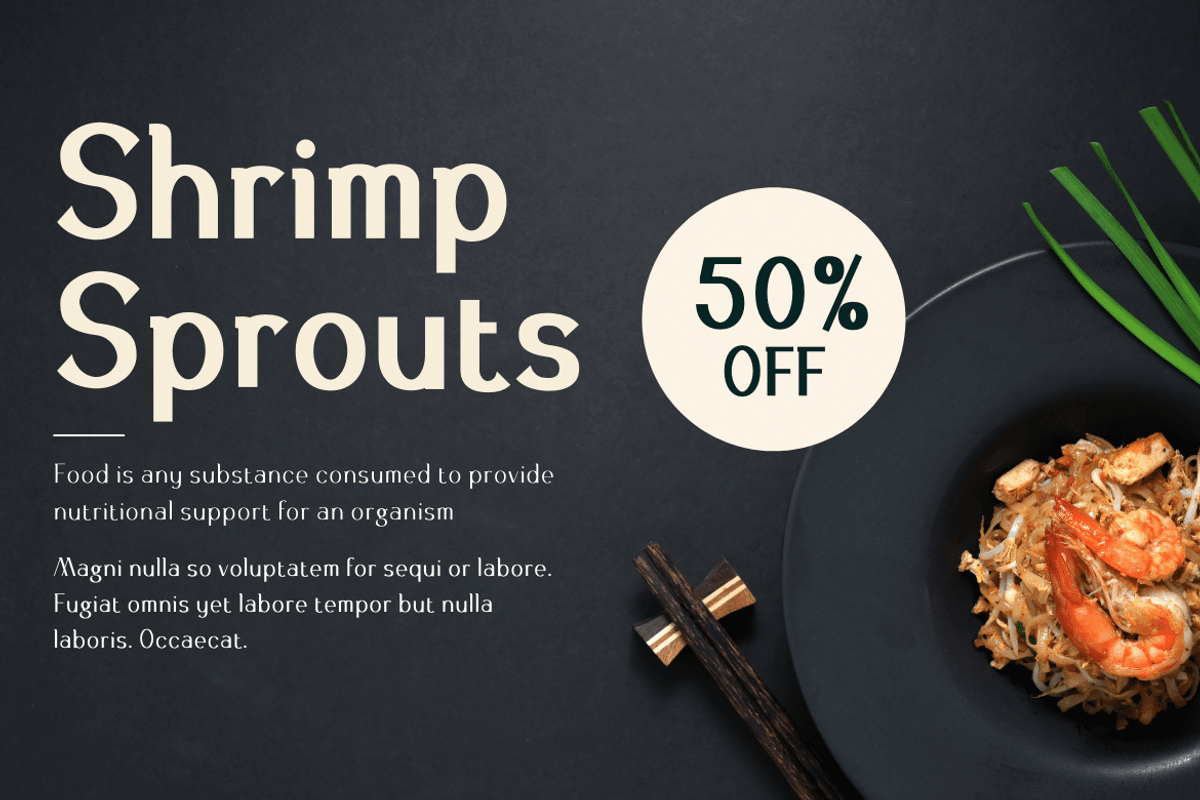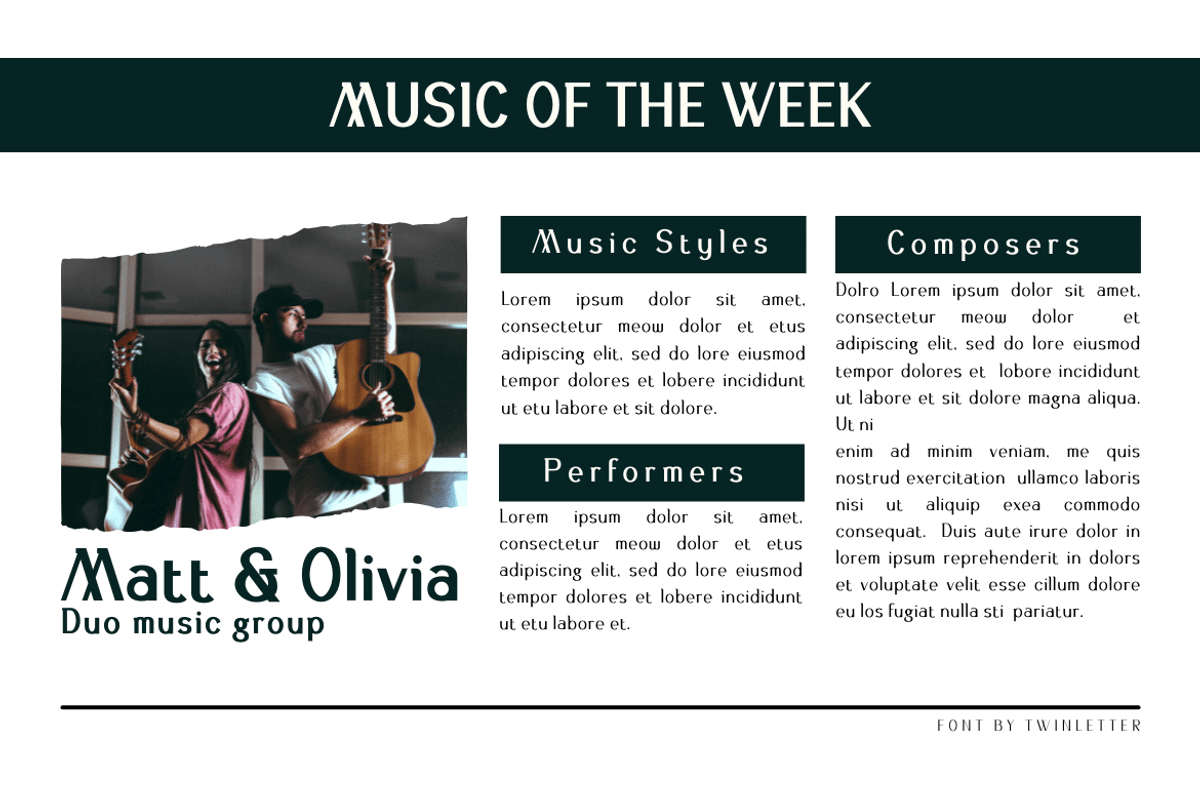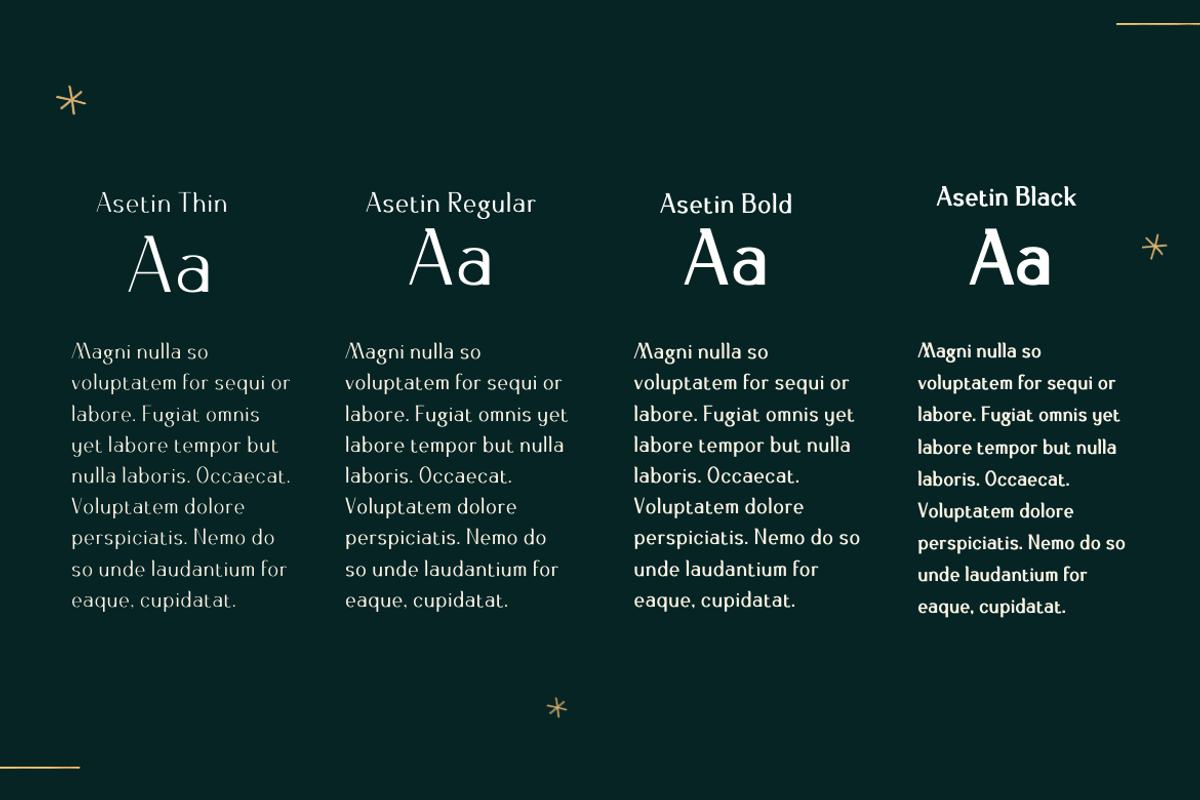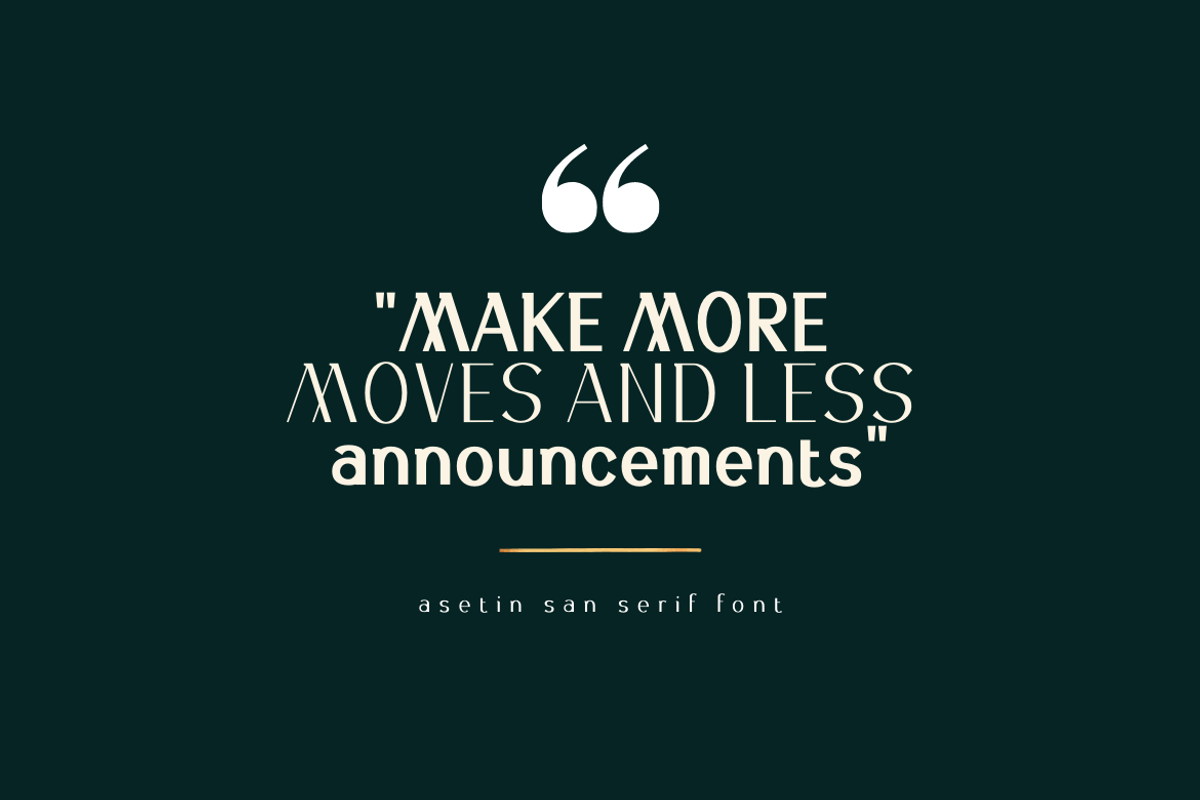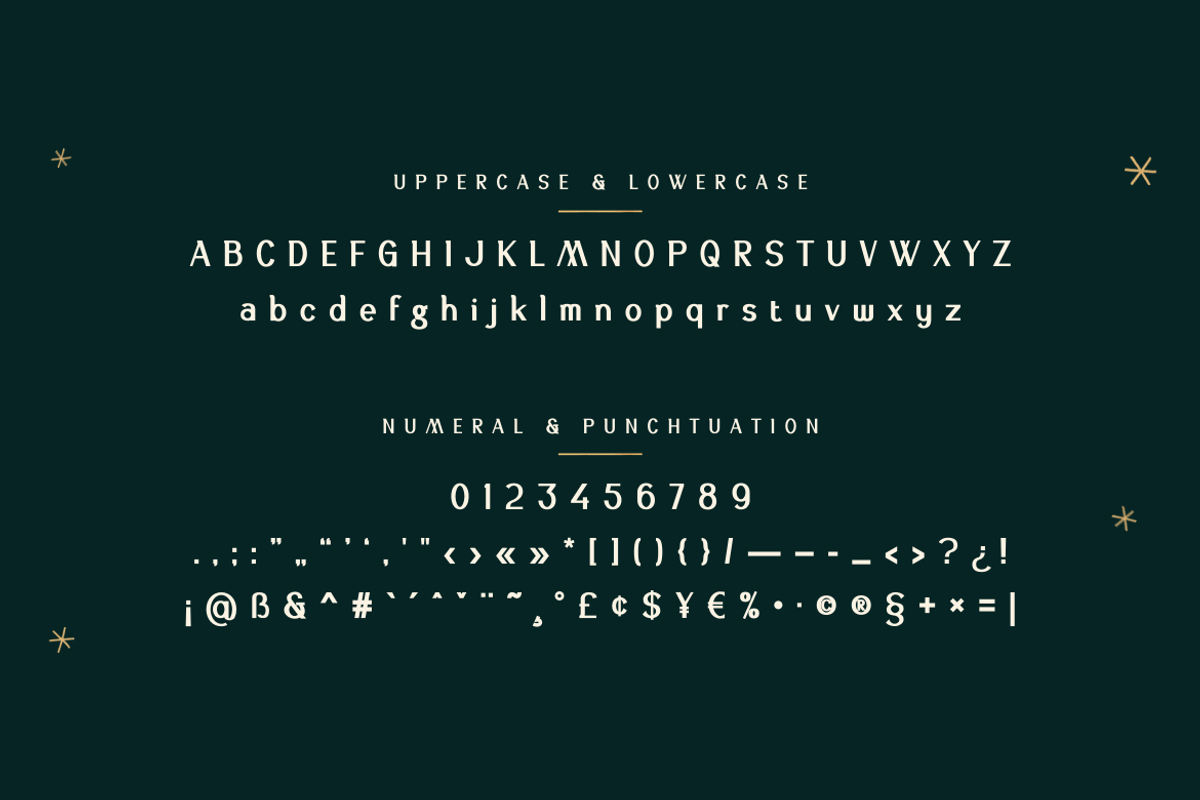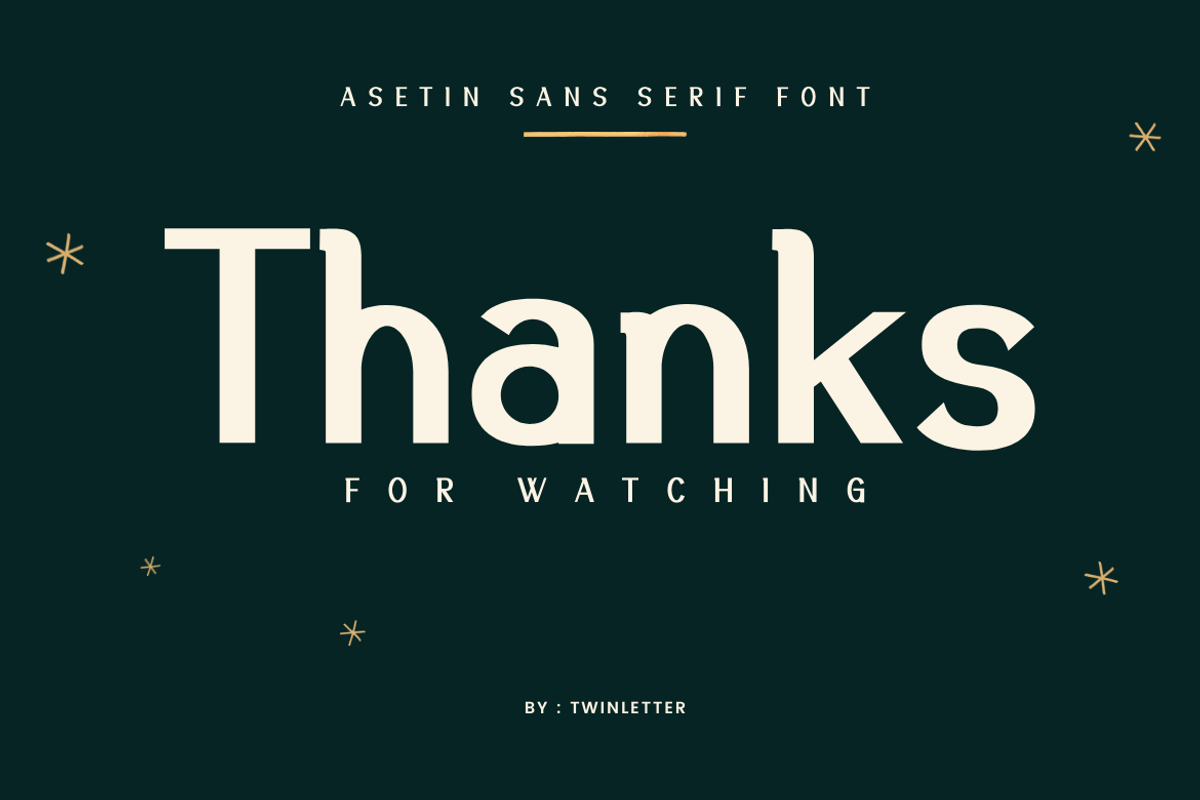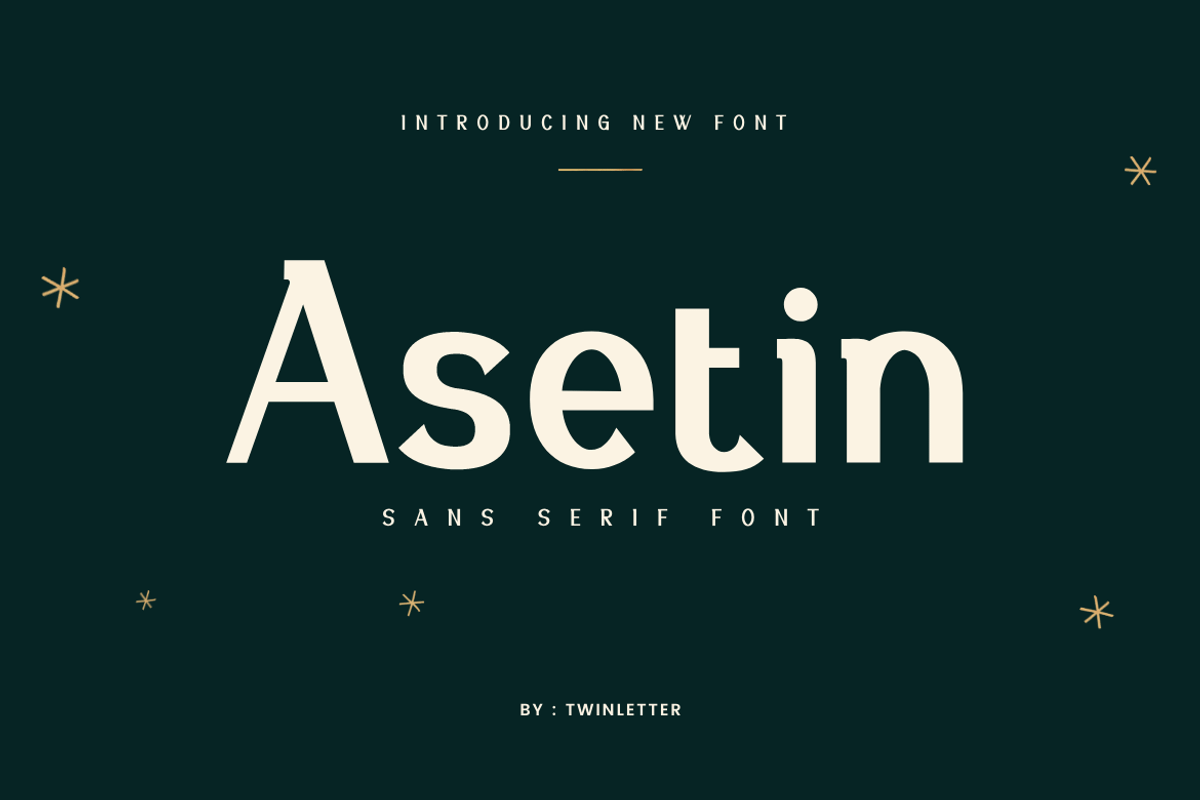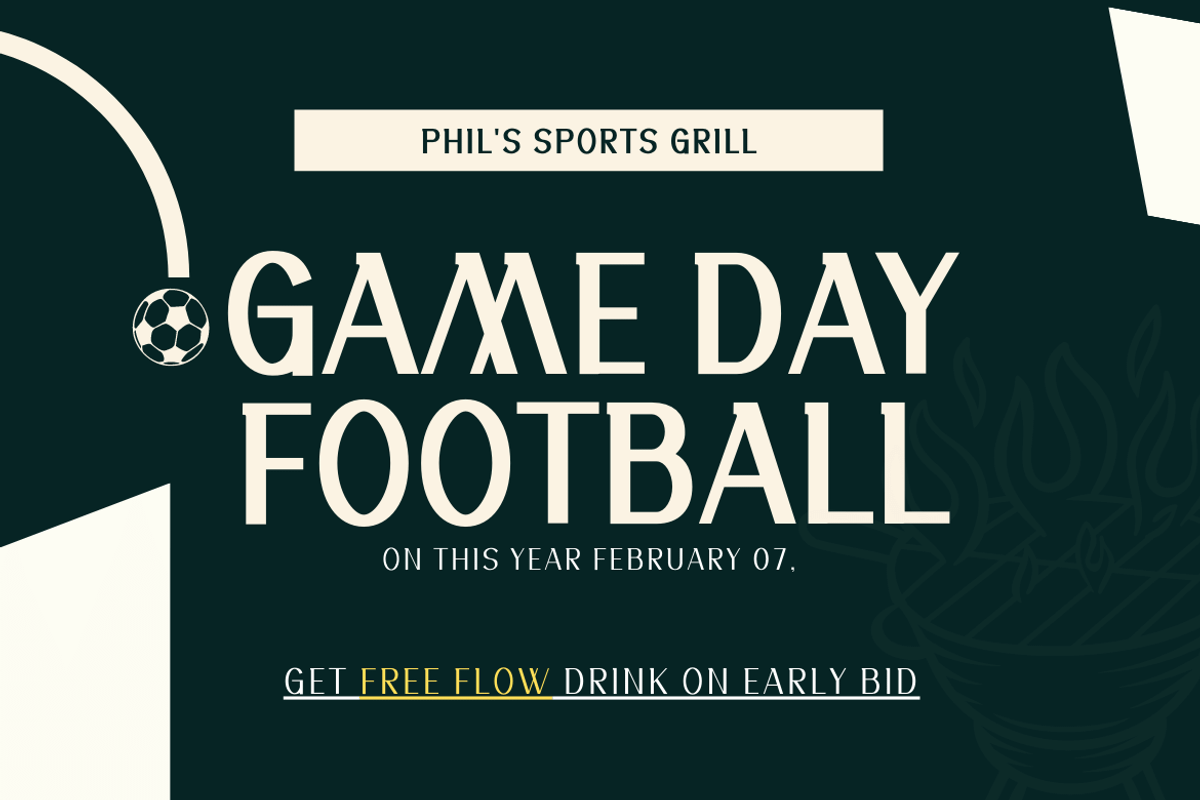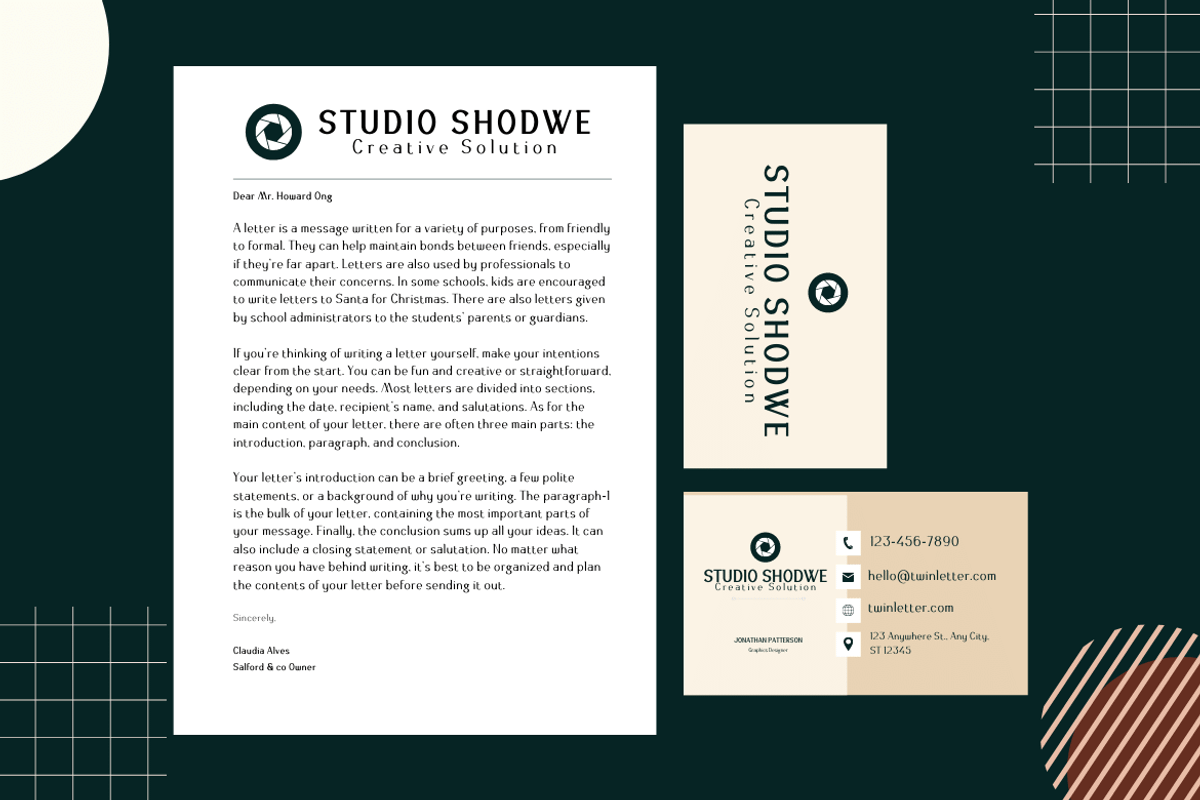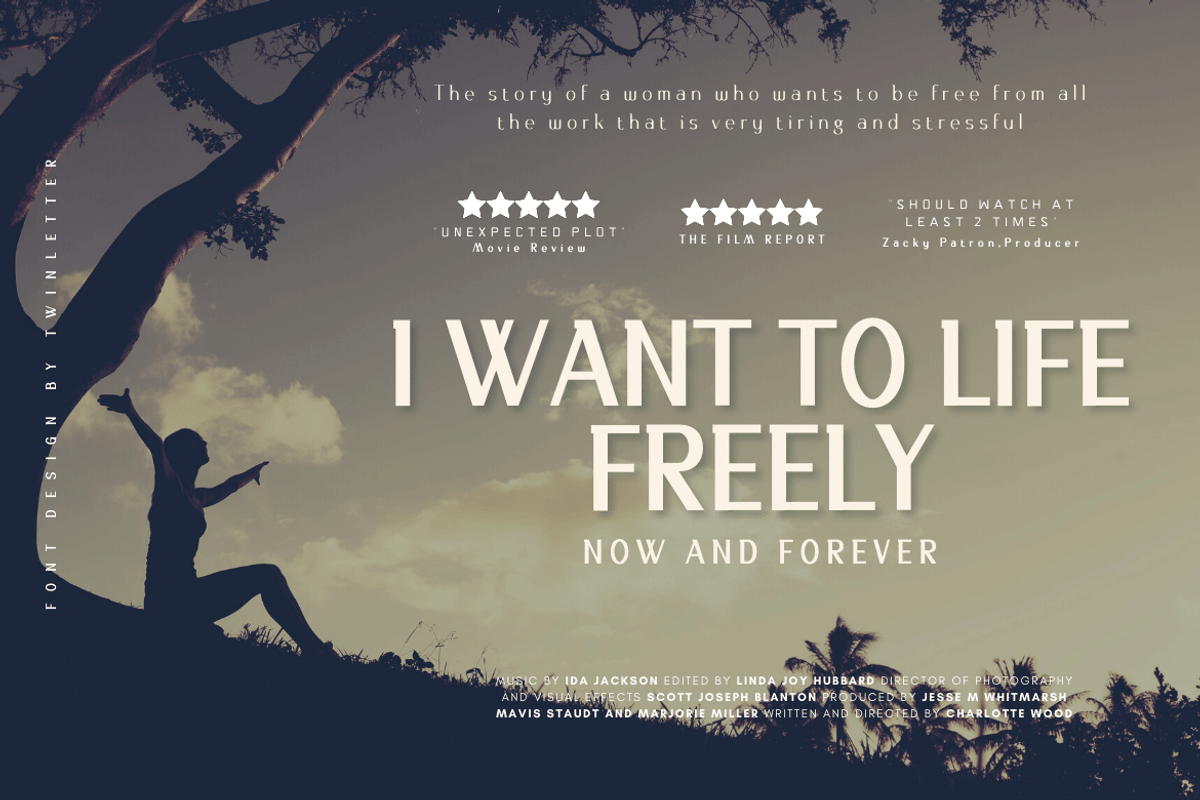
Asetin
With beautiful curves and minimalistic features, Asetin is a one-of-a-kind and powerful sans-serif typeface. This will offer your project a unique, fresh look that you won’t find anywhere else. Asetin gives an exciting touch to anything you wish to produce, from branding to creative endeavors like websites or eBooks, and beyond. With Asetin, you can add a touch of contemporary to any project. Its adaptable design makes it ideal for a variety of creative undertakings, so it’ll be a perfect fit for your next project.
of course, your various design projects will be perfect and extraordinary if you use this font because this font is equipped with a font family, both for titles and subtitles and sentence text, start using our fonts for your extraordinary projects.